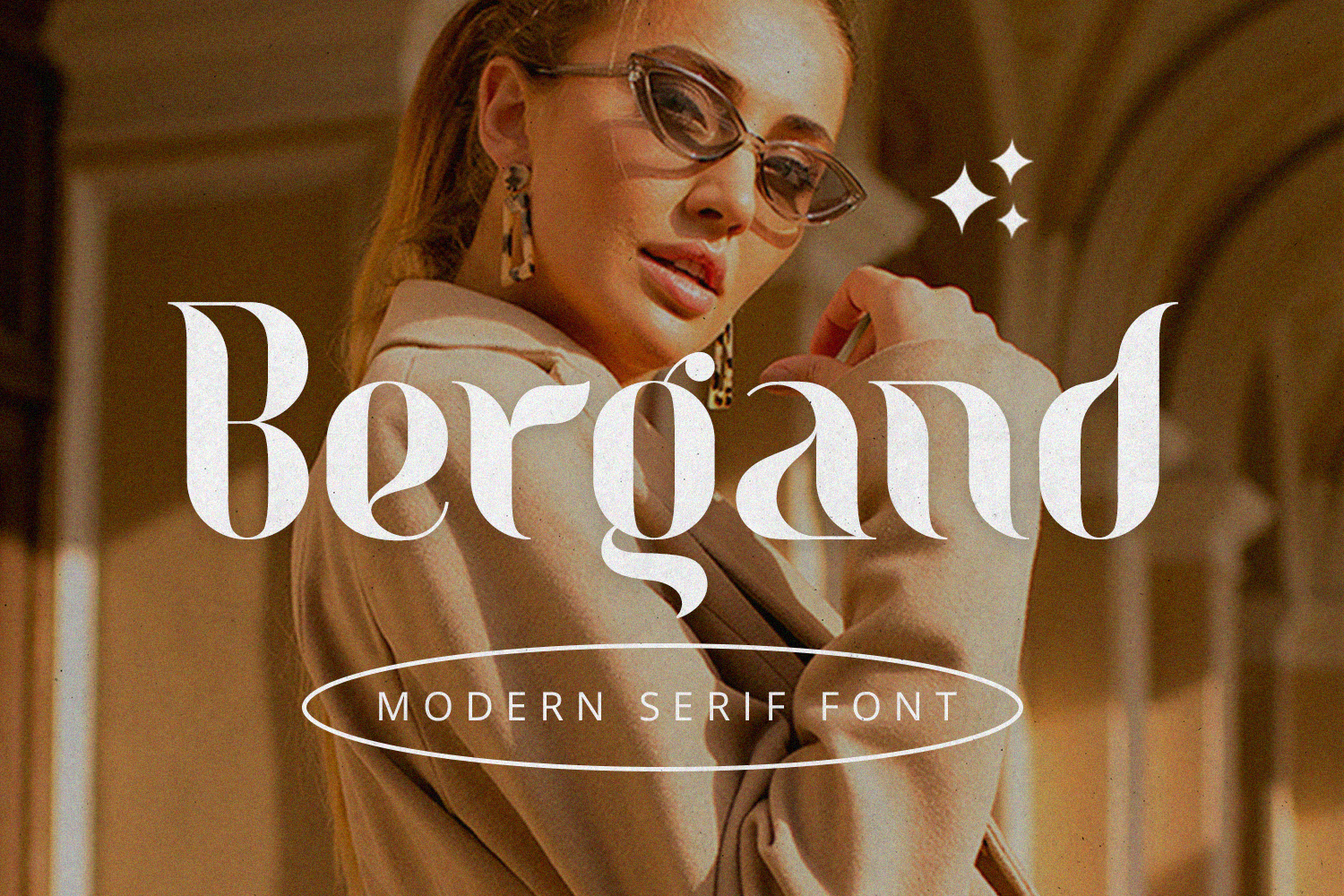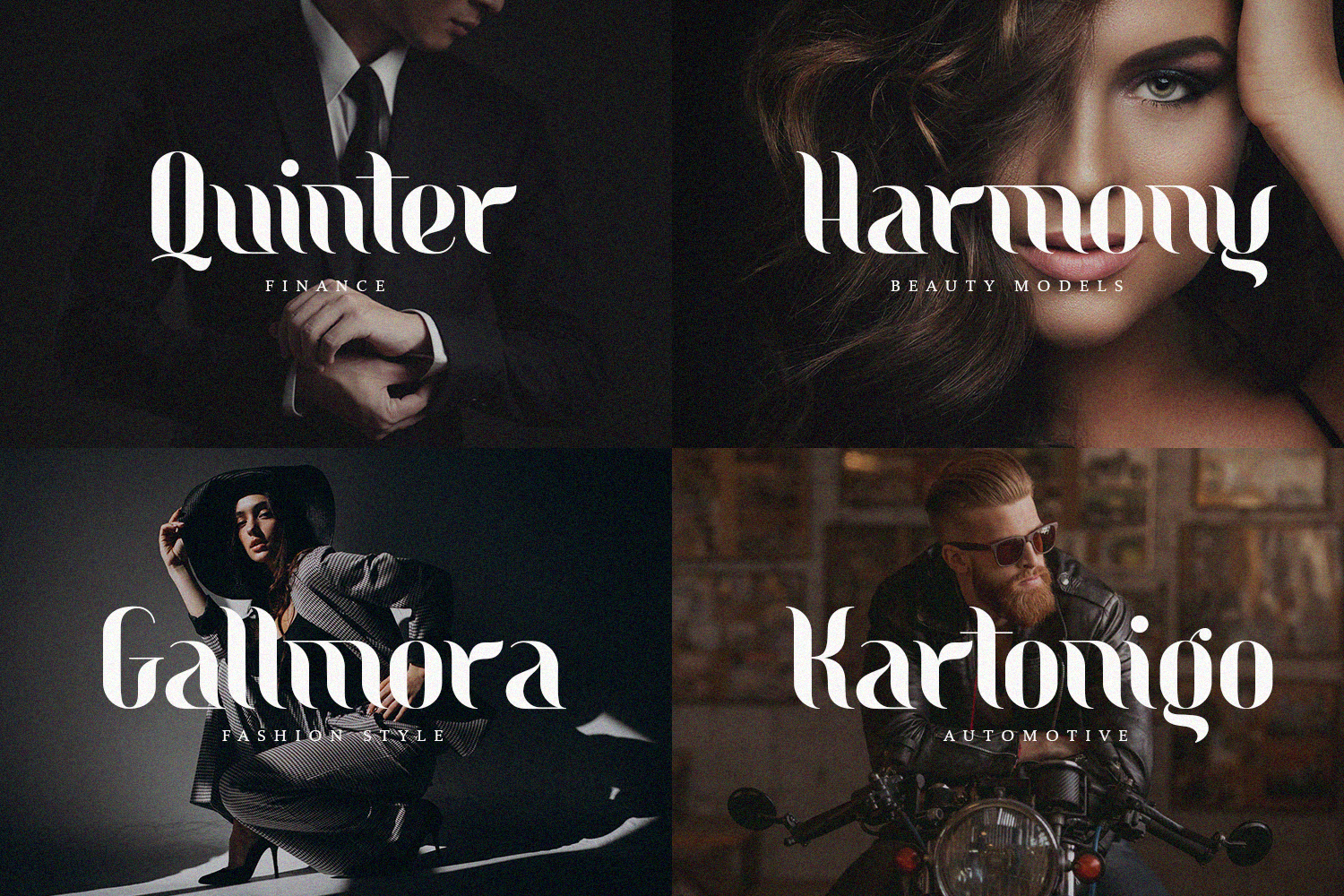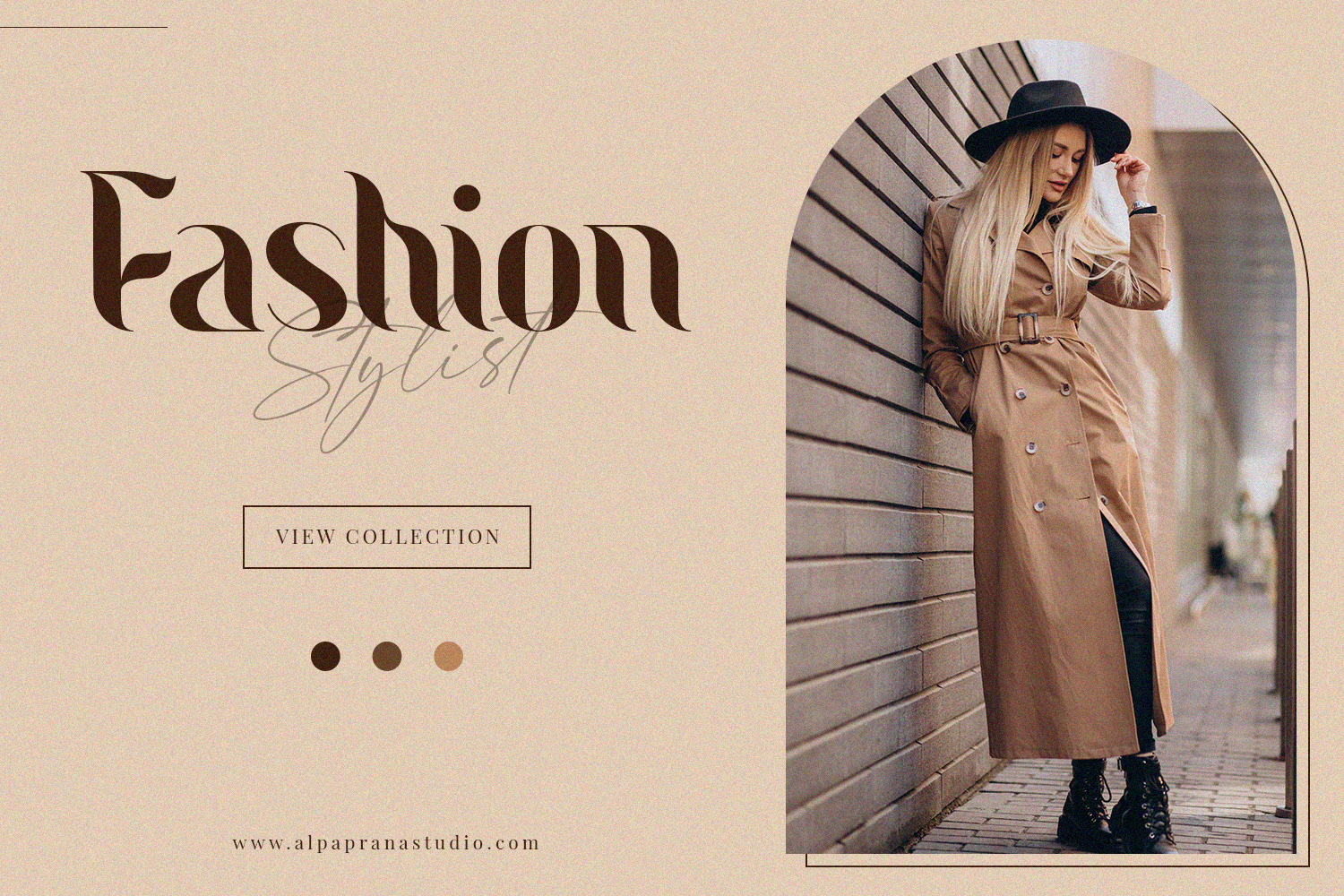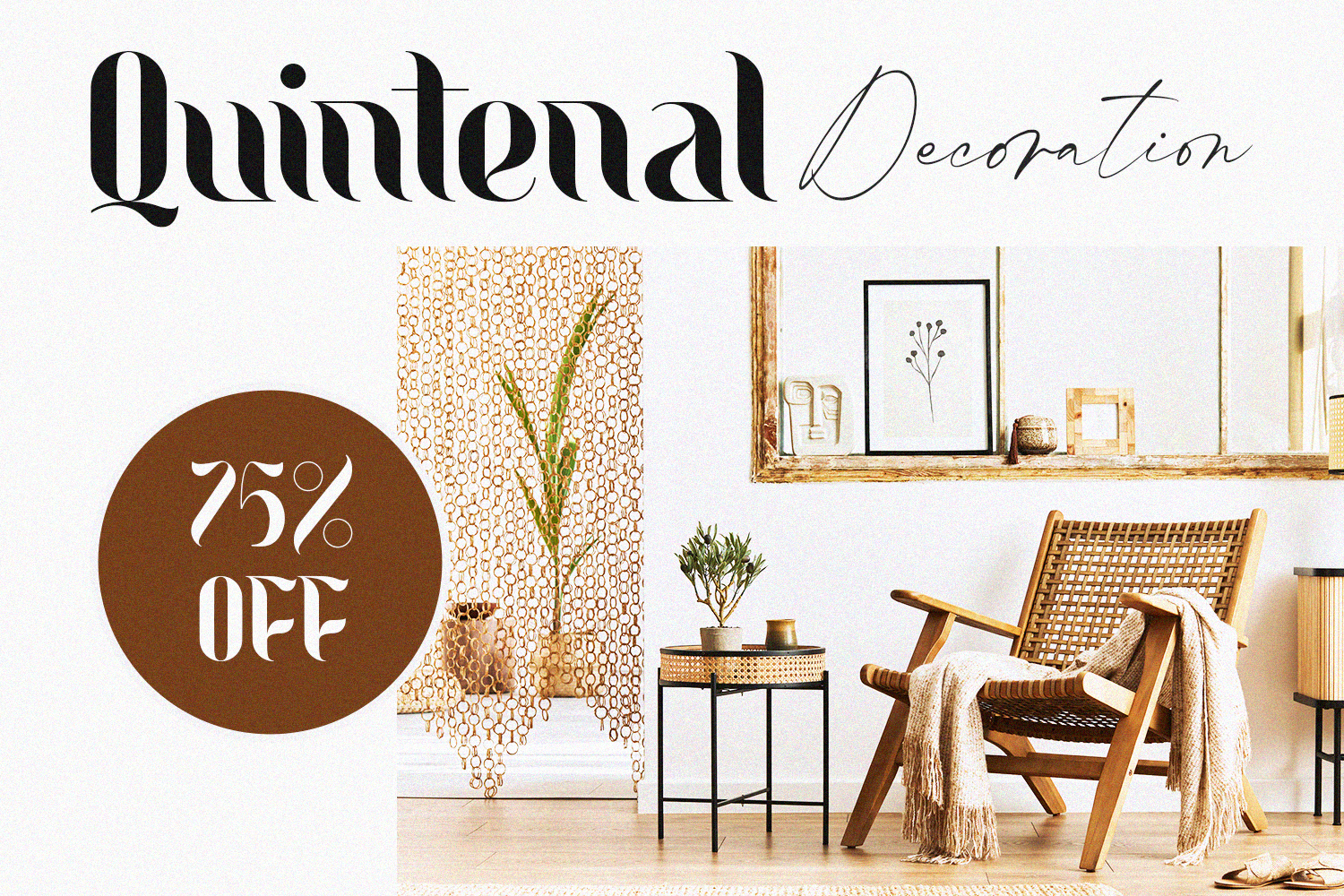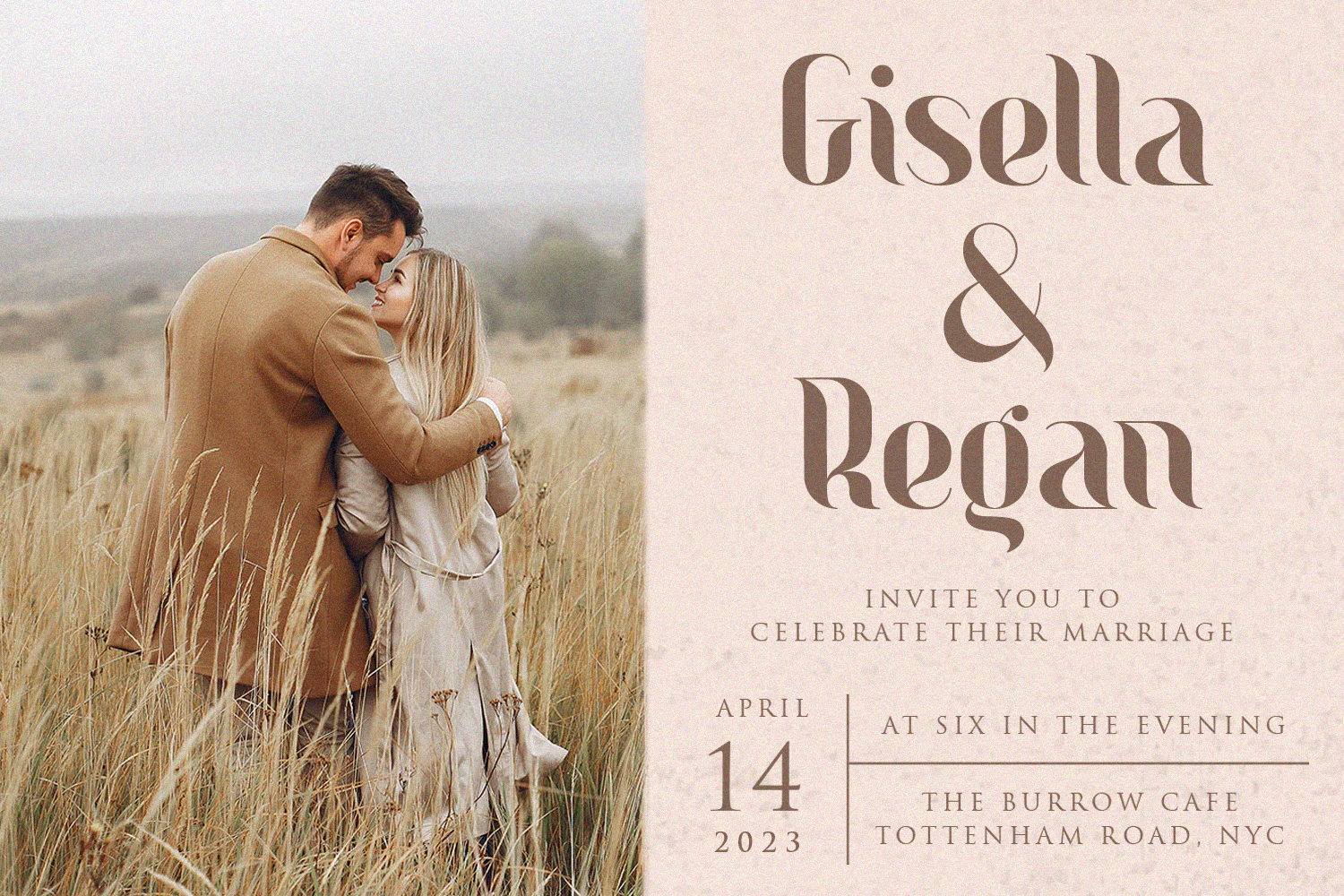
Bergand Font
Bergand Serif Font
This is a modern serif font with authentic and luxury feels. It will be perfectly used for Branding, Logo Design, Lettering, Logotype, Clothing, Poster, magazine, packaging, posters, shopping bags, t-shirts, book covers, photography, special events and other design project.